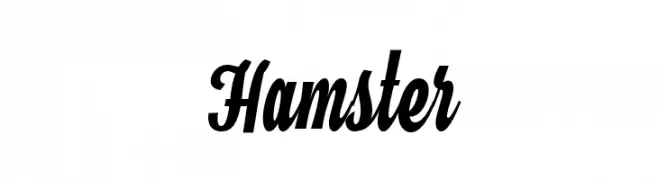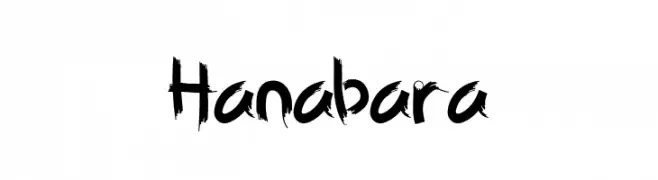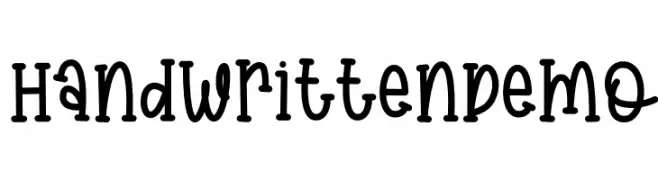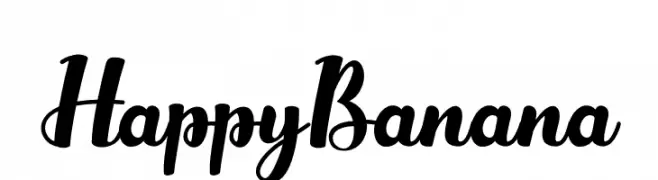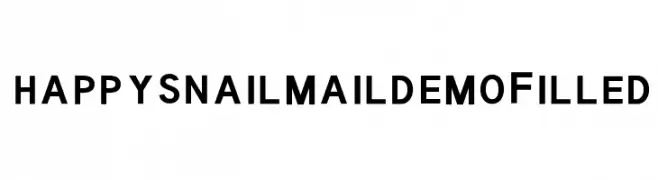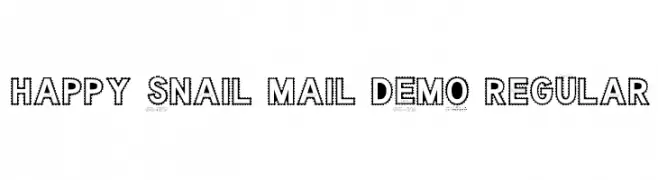
A playful handwritten font with fluid, connected letterforms and a charming cursive flow.
A bold, dynamic script font with flowing, cursive letterforms.
A bold, brush-style font with dynamic, hand-painted strokes.
A playful, handwritten-style font with bold, rounded characters.
A bold, playful script font with dynamic and flowing letterforms.
A bold, modern font with clean, geometric lines and consistent styling.
A playful, bold font with a perforated, stamp-like edge.
A playful, dotted outline font perfect for whimsical designs.